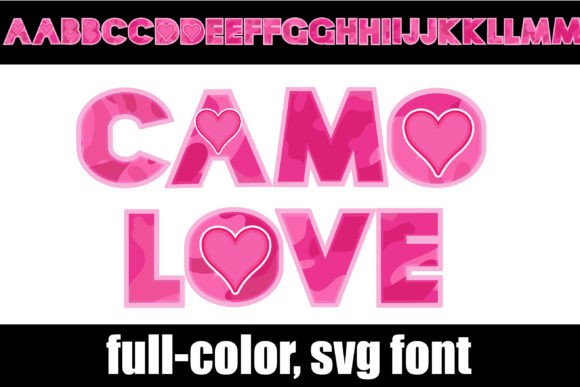
Introducing Camo Love Font, a Splash of Color and Vibrance for Your Creative Projects!
In a world where fonts often blend together, Camo Love Font stands out as a radiant beacon of creativity and charm. This enchanting font isn't just a collection of letters; it's an explosion of vibrant hues and playful designs that will transform your projects into captivating masterpieces.
Picture this: a Valentine's Day card adorned with Camo Love's colorful strokes, bursting with affection and joy. The harmonious blend of bright and contrasting shades adds a modern and fresh touch, making your card the talk of the town. Or, envision a captivating logo that radiates with personality, crafted with Camo Love's bold and playful characters.
Camo Love Font is not just visually stunning; it's also incredibly versatile. Whether you're a branding expert, an advertising guru, or a creative mastermind, this font has the power to elevate your designs to new heights. Its PUA encoding grants you effortless access to a treasure trove of glyphs and swashes, empowering you to add intricate details and flourishes that will leave your audience spellbound.
With Camo Love Font as your creative companion, you'll embark on a journey of self-expression and artistic fulfillment. Let your imagination run wild as you create stunning designs that captivate and inspire. Unleash the magic of Camo Love Font and witness the transformation of your projects into extraordinary works of art.